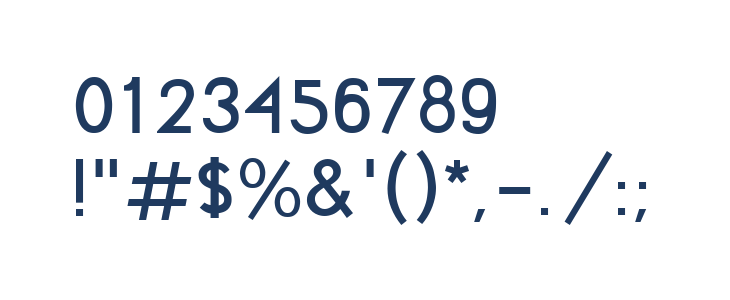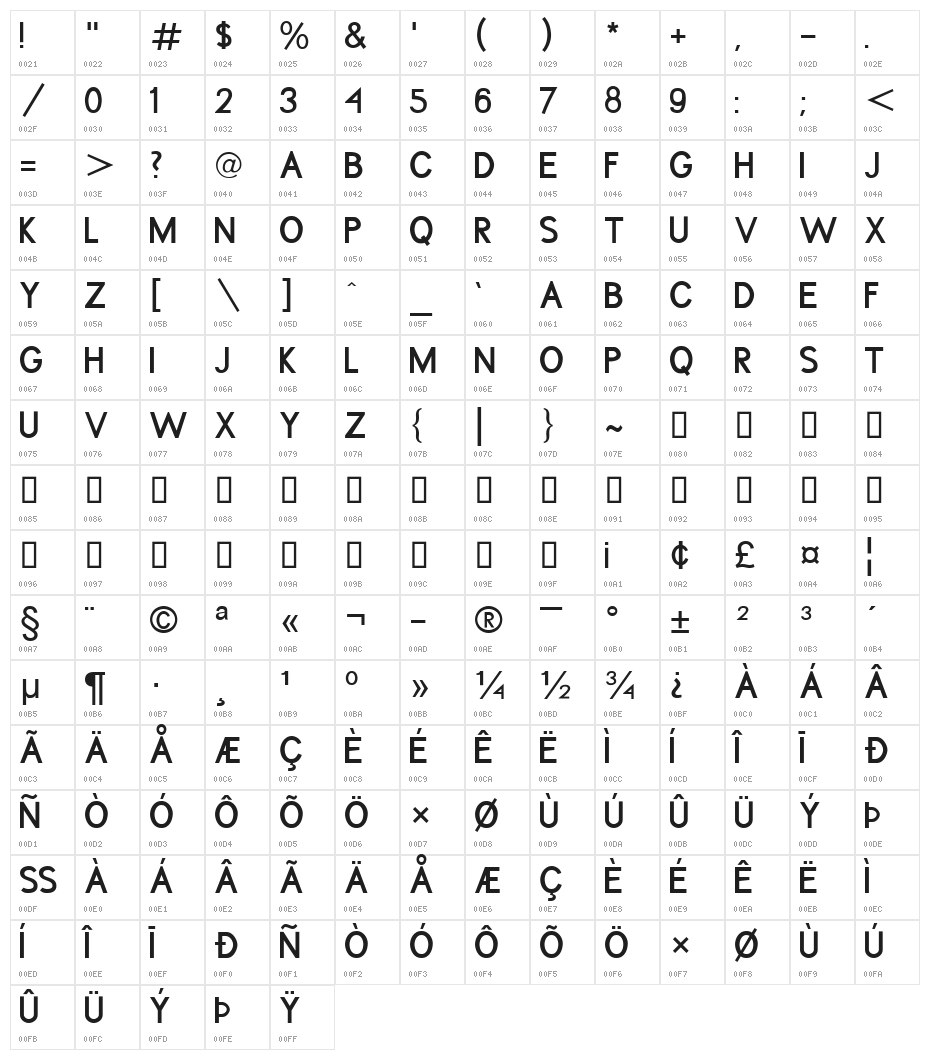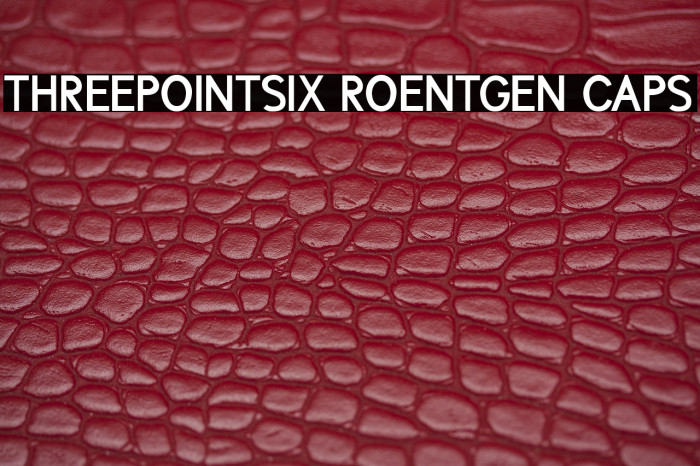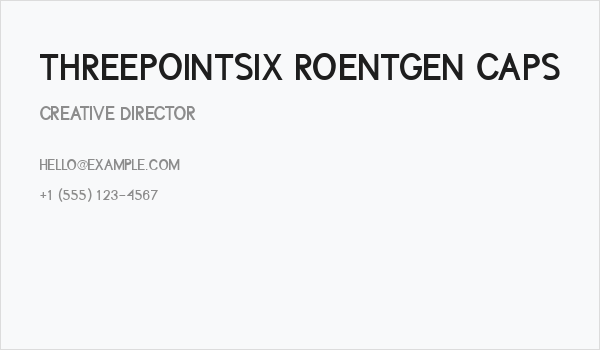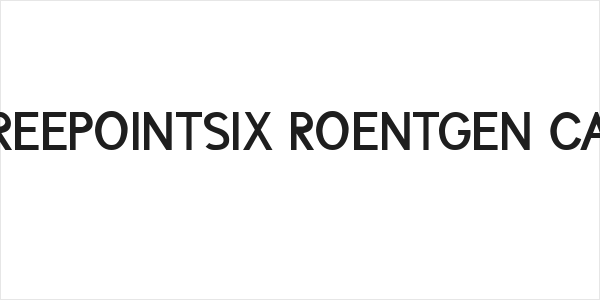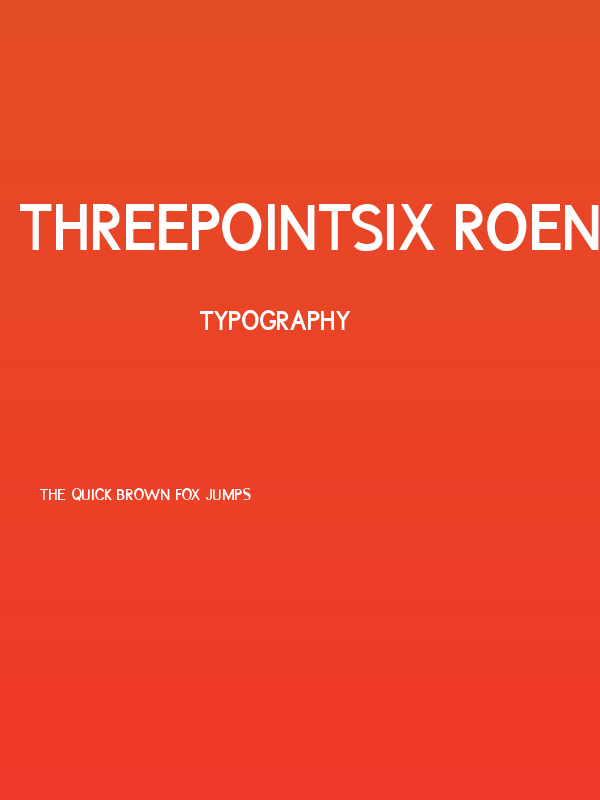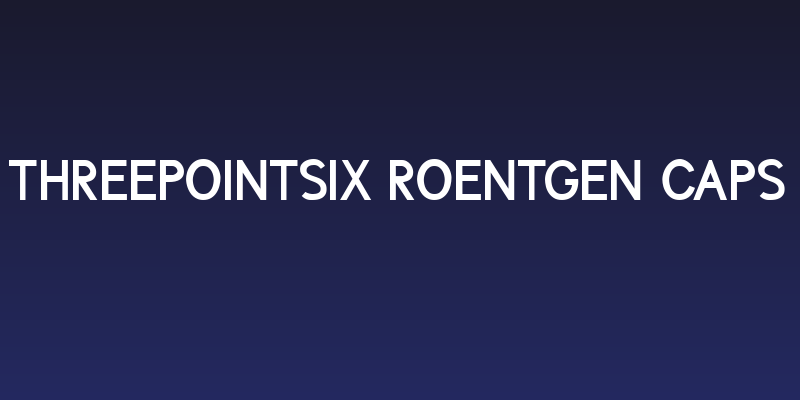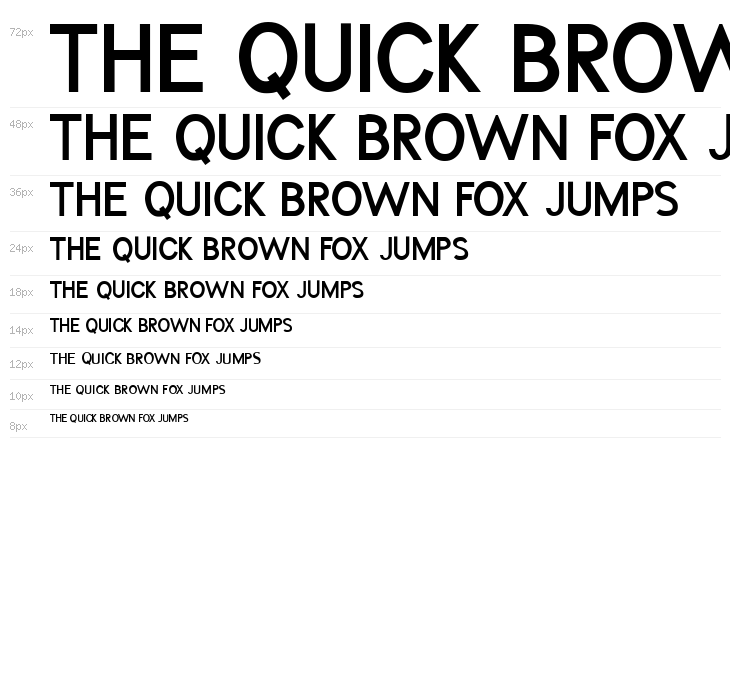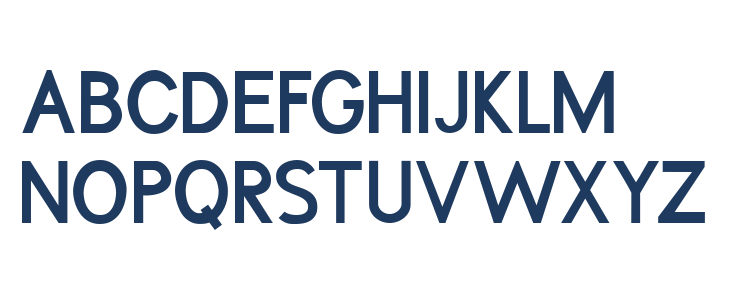
ThreePointSix Roentgen Caps Font
ThreePointSix Roentgen Caps Description
This font features clean, bold lines with a modern and professional appearance. The characters are evenly spaced, providing excellent readability. The uppercase letters are uniform in height, while the numerals are distinct and clear. The special characters are well-defined, making this font versatile for various applications. Its simplicity and clarity make it suitable for both digital and print media, ensuring that text stands out without being overwhelming.
| Use Case | Headlines, Logos, Signage |
| Proposed Projects | Ideal for corporate branding, signage, headlines, and digital content where clarity and professionalism are key. |